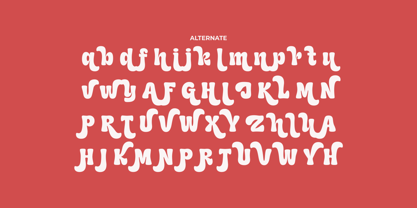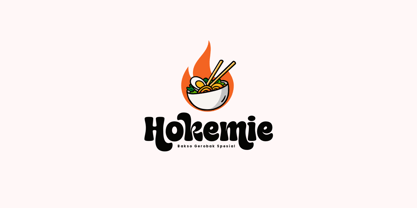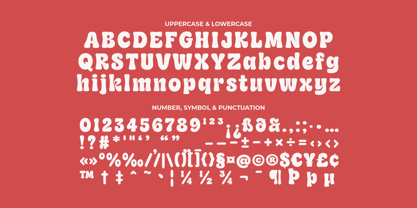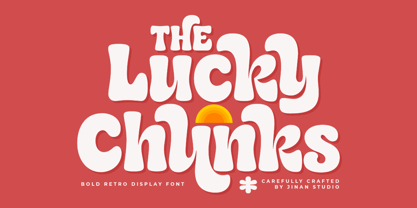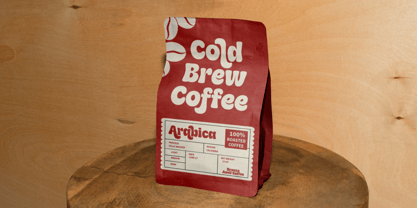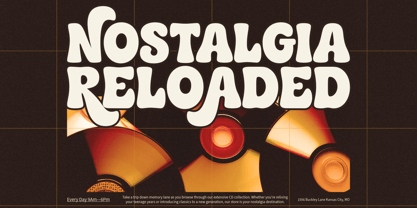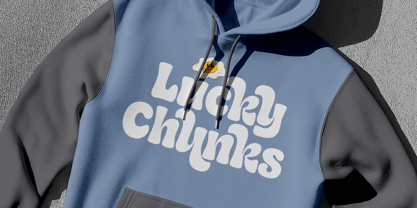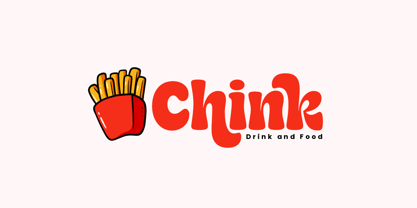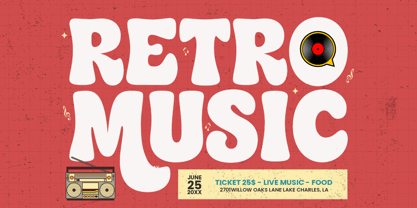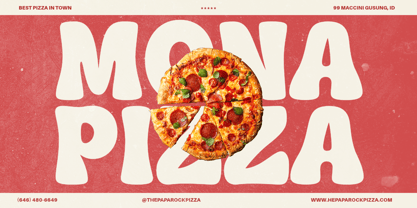
Lucky Chunks
La familia tipográfica Lucky Chunks fue diseñada por Andi Syahdang, Ainun Jinan y publicada por Jinan Studio. Lucky Chunks contiene 1 estilos. Más información sobre esta familia
Lucky Chunks is a bold retro display font with a playful groovy vibe and soft rounded curves that bring a warm vintage feeling to every design. Inspired by the cheerful spirit of the 70s and nostalgic handmade lettering, this font is perfect for creating eye-catching headlines, branding, posters, packaging, t-shirts, stickers, and social media graphics. Its chunky shapes, smooth flowing edges, and unique character style make it ideal for projects that need a fun, friendly, and expressive touch. Whether you're designing for boho themes, retro aesthetics, kids branding, or vintage-inspired products, Lucky Chunks adds personality and charm effortlessly. Perfect for logos, quotes, invitations, album covers, café branding, and creative craft projects, this font gives your work a standout look with a timeless retro soul. Features A set of uppercase and lowercase glyphs Number, symbol, and punctuation Multilingual Support Alternate